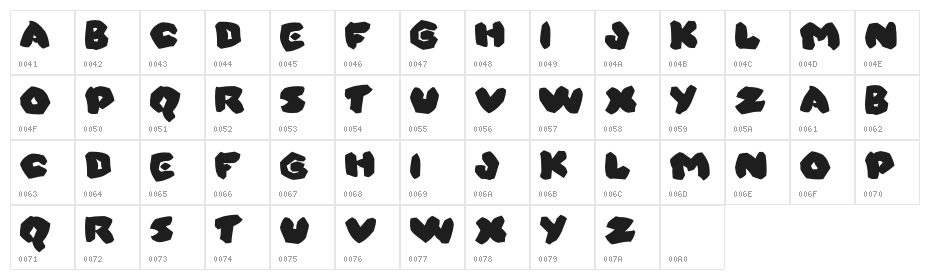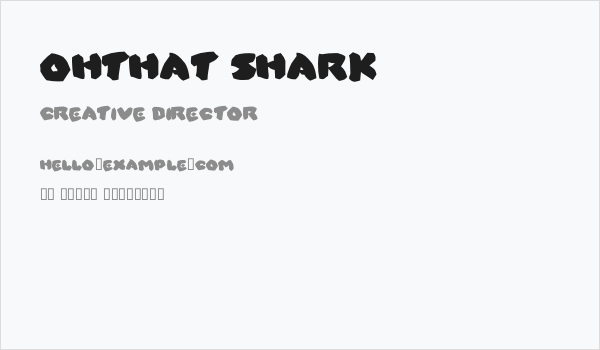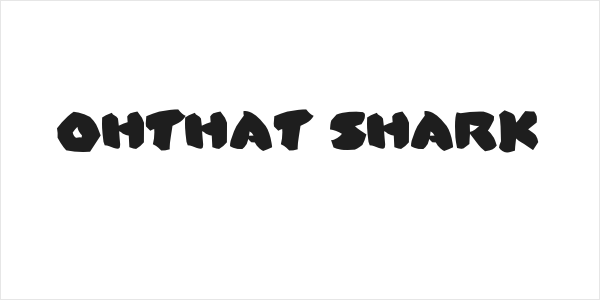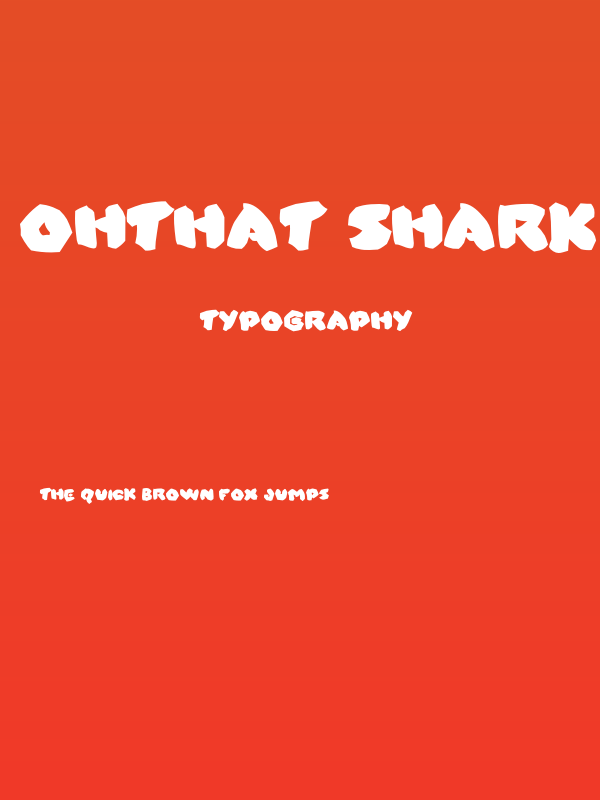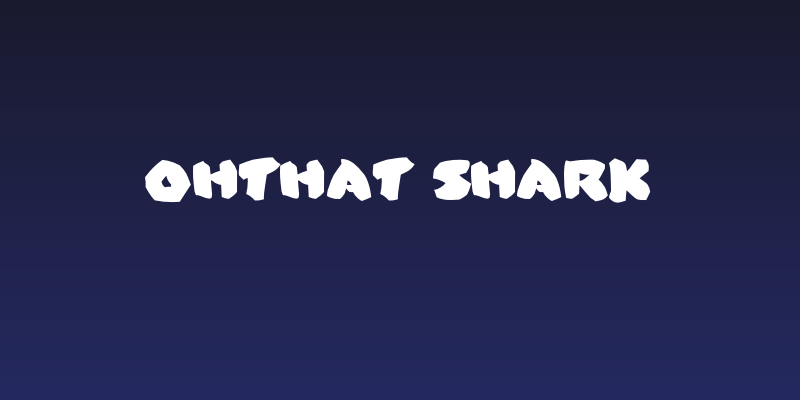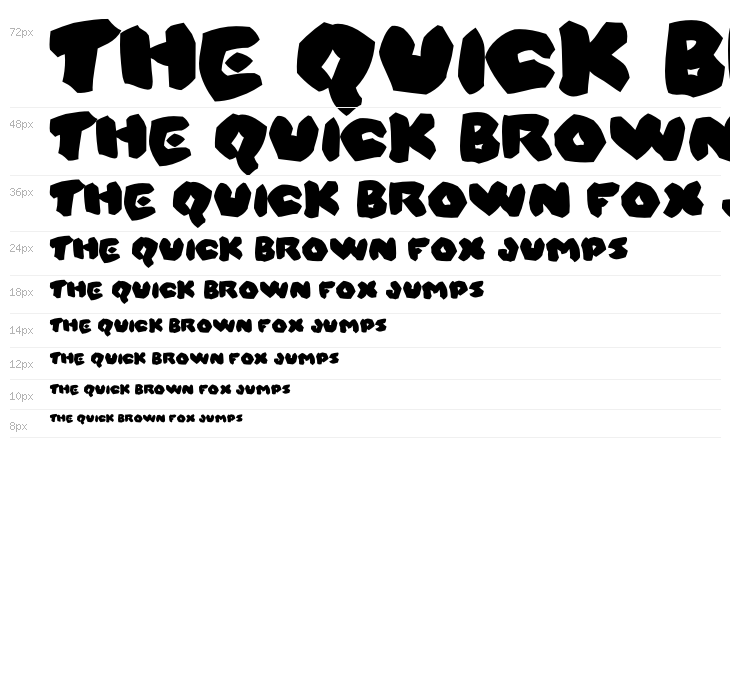
OhThat Shark Font
OhThat Shark Description
This font features a bold and dynamic style with a playful, jagged appearance reminiscent of shark teeth. The uppercase letters are robust and angular, giving a sense of movement and energy. The design is consistent across the alphabet, maintaining a cohesive look that is both eye-catching and unique. The font's thick strokes and sharp edges make it stand out, ideal for projects that require a bold statement. Its distinctive style is perfect for creative and adventurous themes, capturing attention with its unconventional form.
| Proposed Projects | Ideal for branding, posters, and any project needing a bold, adventurous look. |